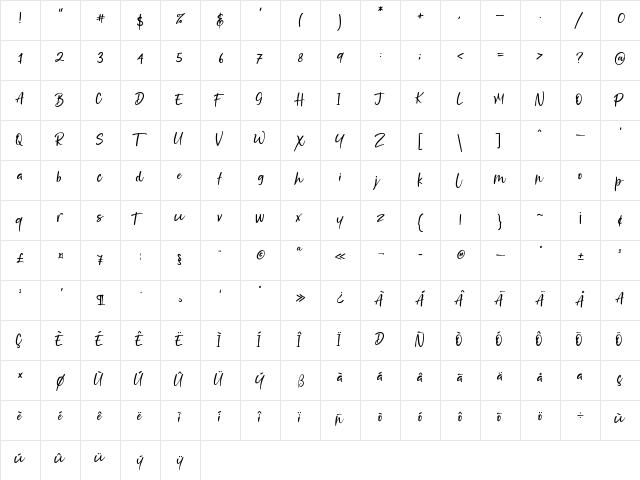
North Coast Regular
| Foundry | Kong Font |
| Designer | Kong Font |
Design Context for North Coast Typeface
North Coast is a composed and adaptable typeface that performs quietly and consistently across a wide range of design contexts.